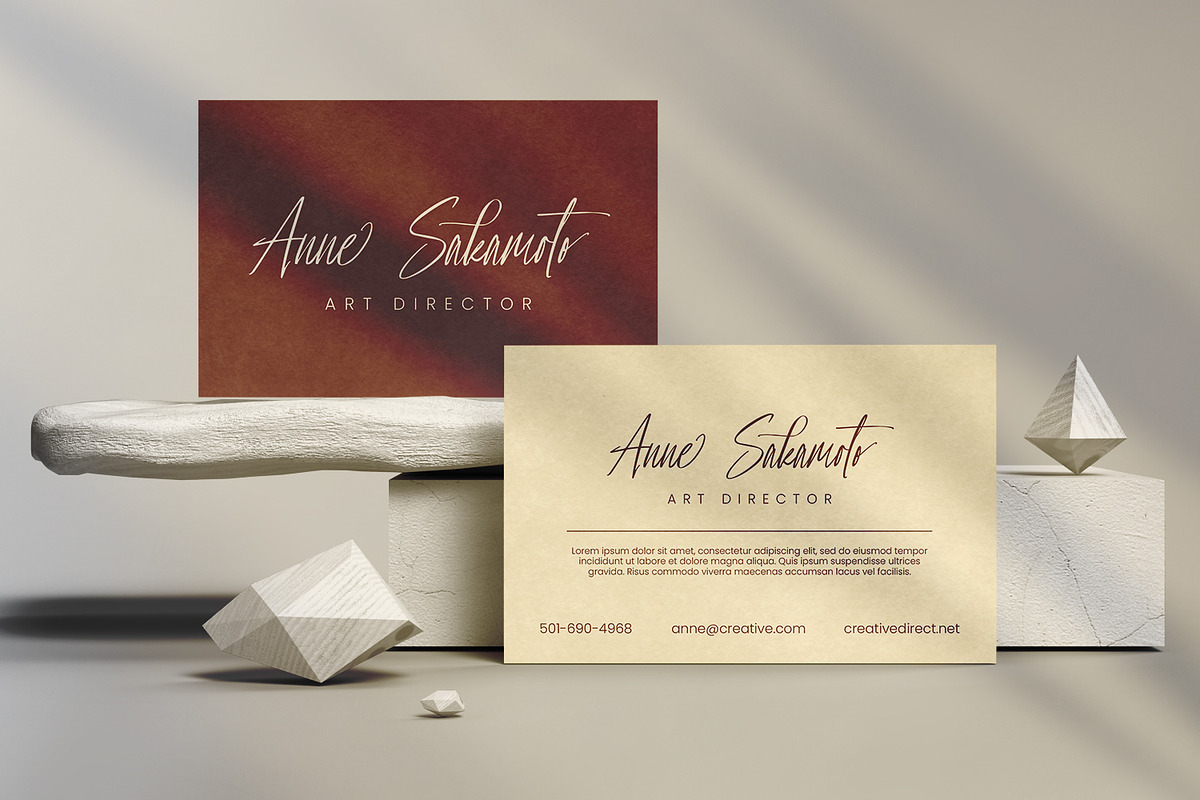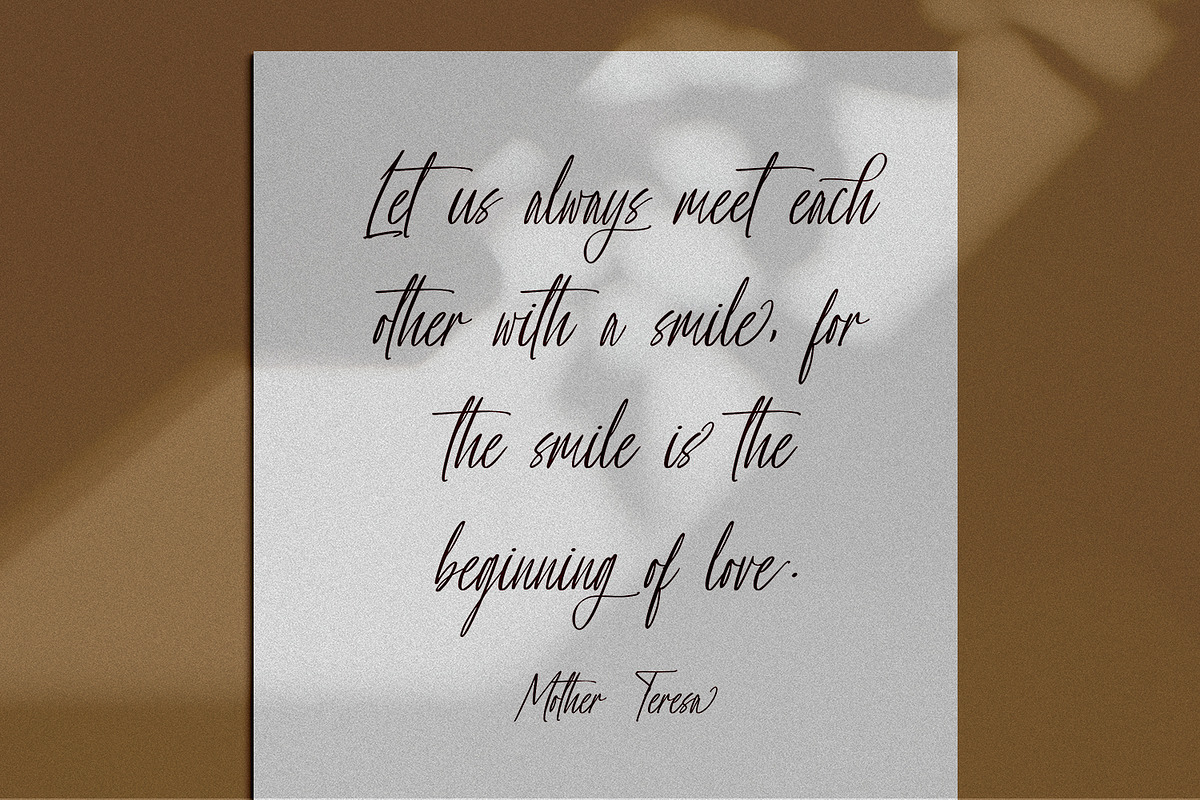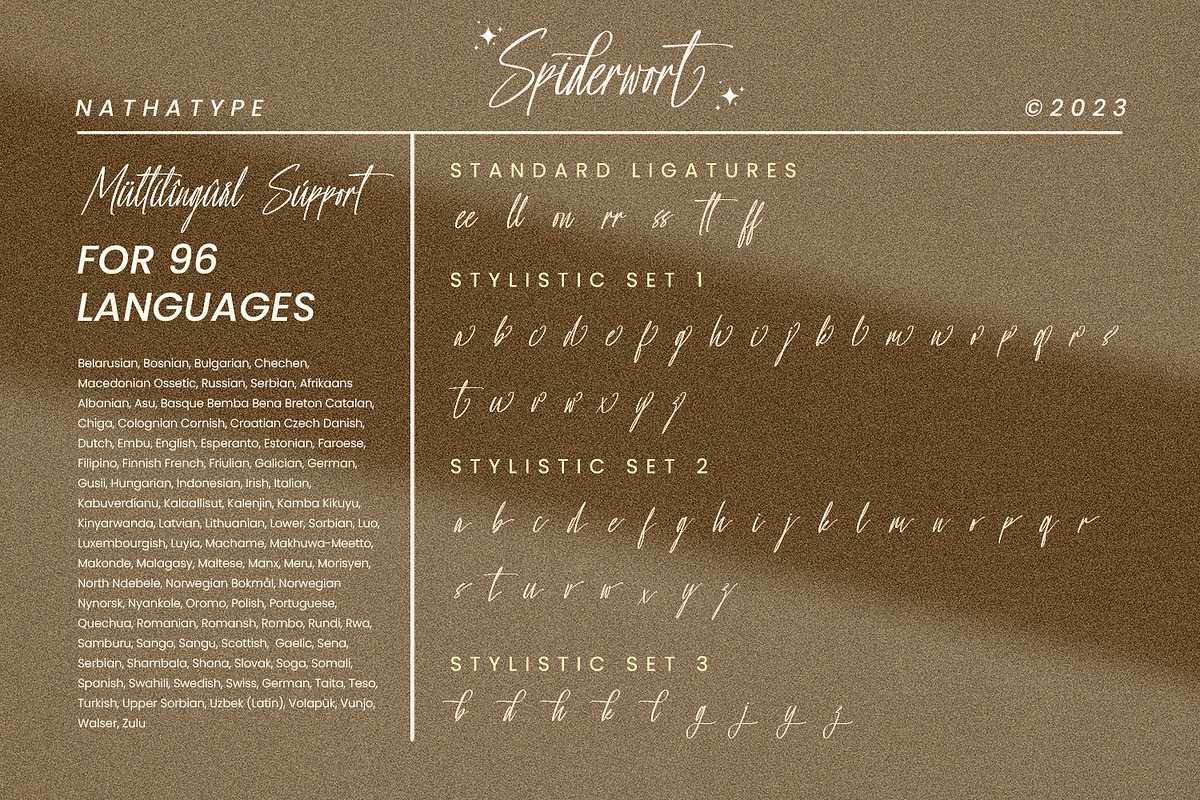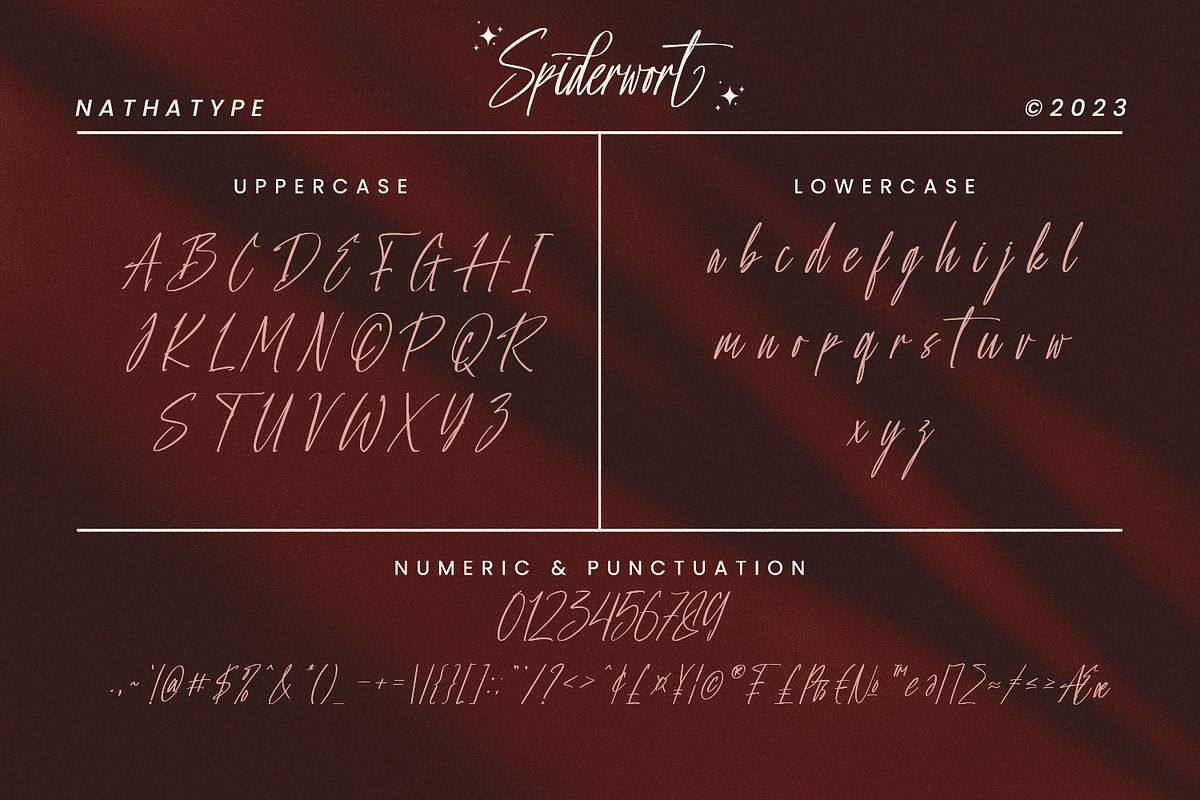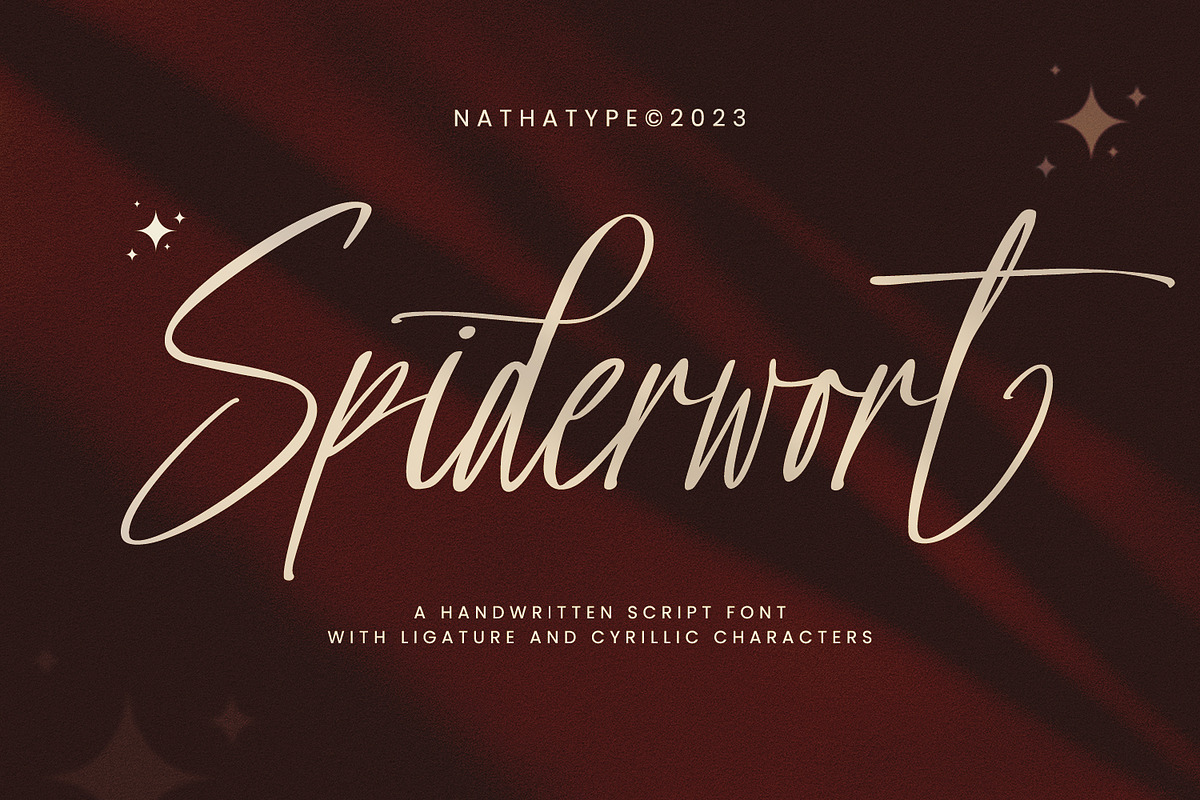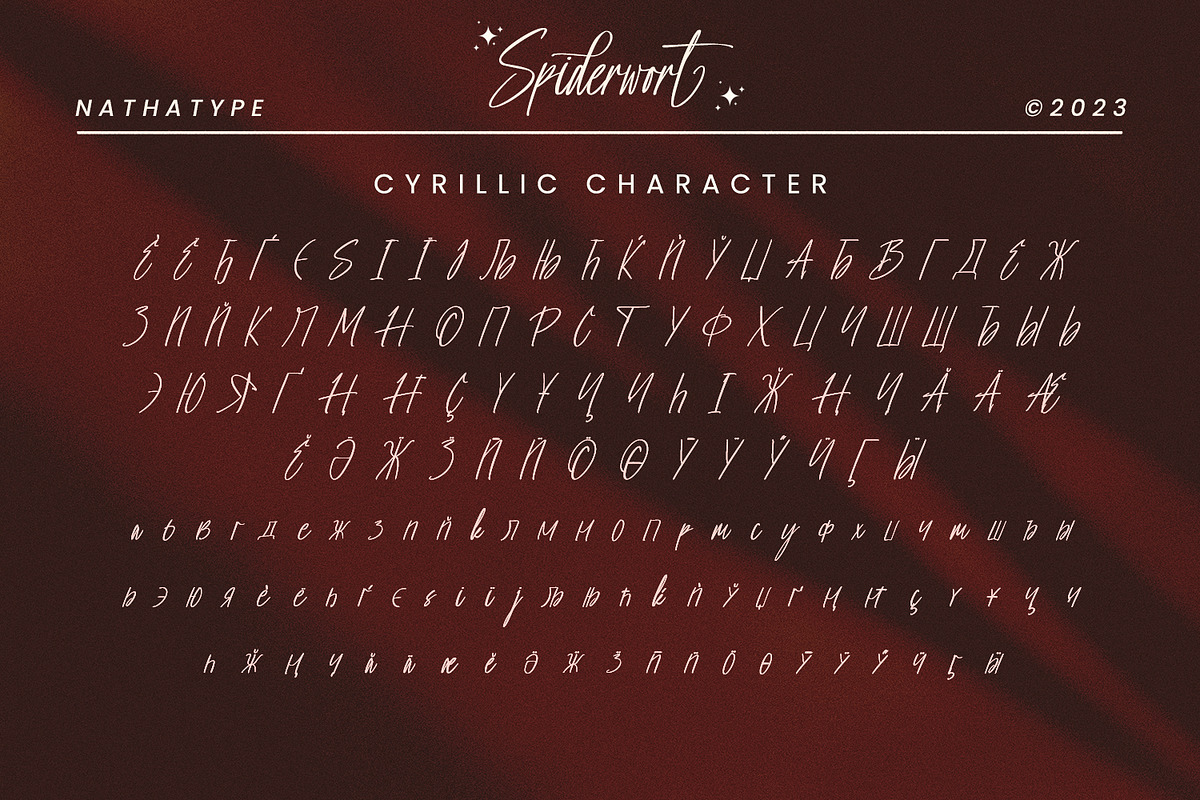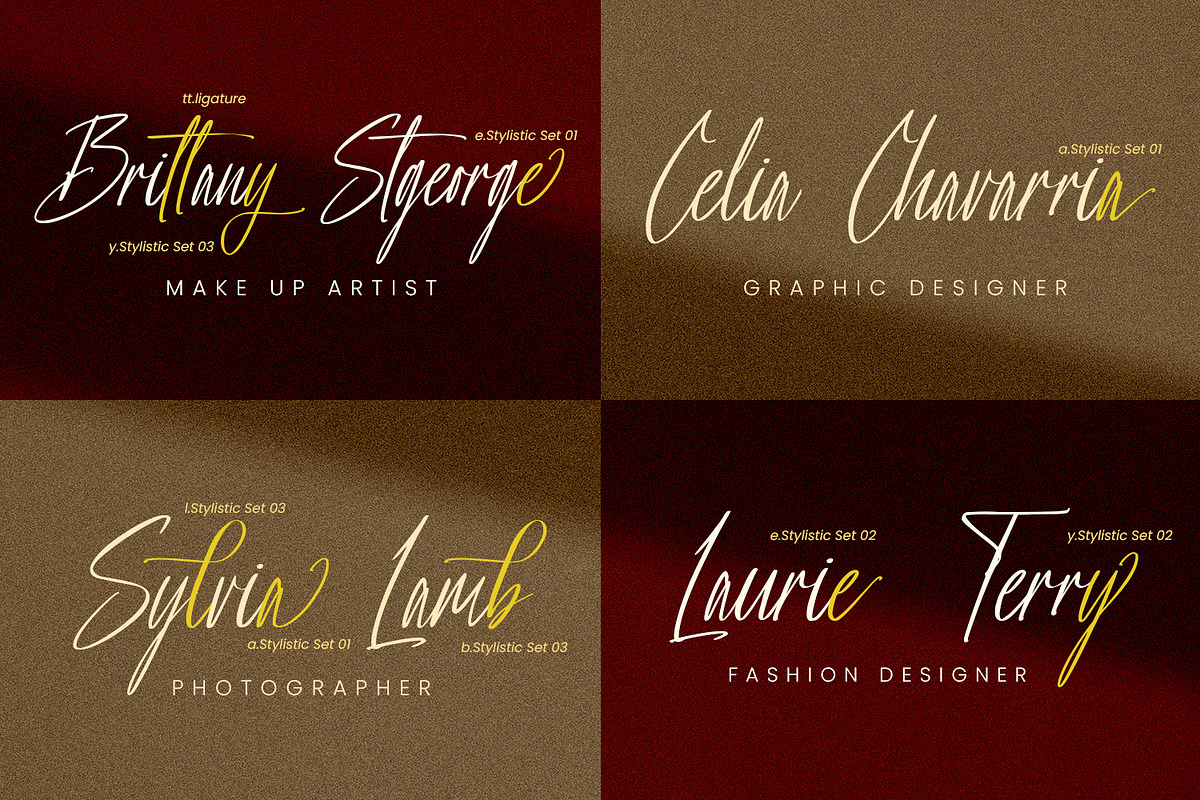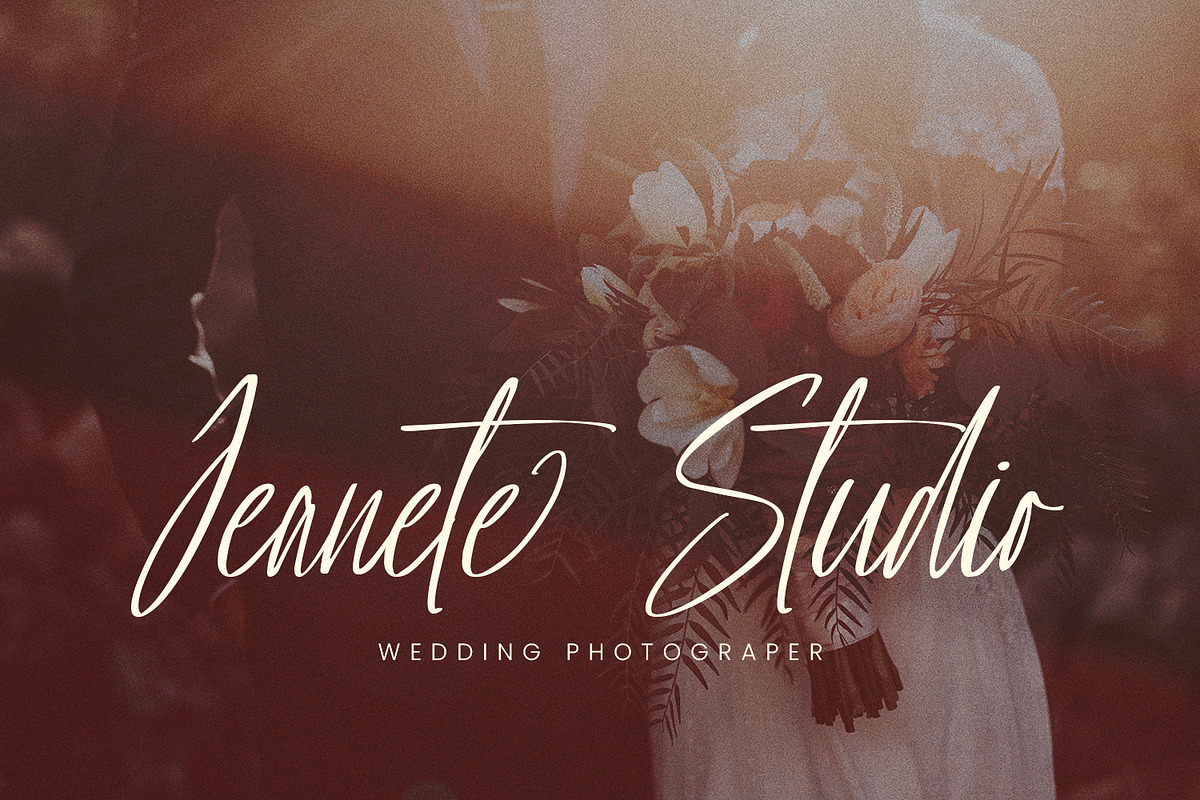
Spiderwort
Spiderwort is a lovely script font designed in a natural handwriting look. Like the other cursive fonts, the letters are interconnected to each other. This font type is perfectly applicable for texts that combine uppercases and lower cases in order for the writing to look flawlessly connected.
Furthermore, it expresses soft and relaxing nuances to use in informal texts. The character of this font is the low contrasts in thin, unfirm lines. Nevertheless, it shows you unique, artistic displays on your designs particularly when you use it well and based on the desired theme. You can apply this font for any text sizes because it is greatly legible and also enjoy the available features here.
- Stylistic Sets
Spiderwort fits best for various design projects, such as brandings, invitations, greeting cards, name cards, quotes, printed products, merchandise, social media, etc. Find out more ways to use this font by taking a look at the font preview.